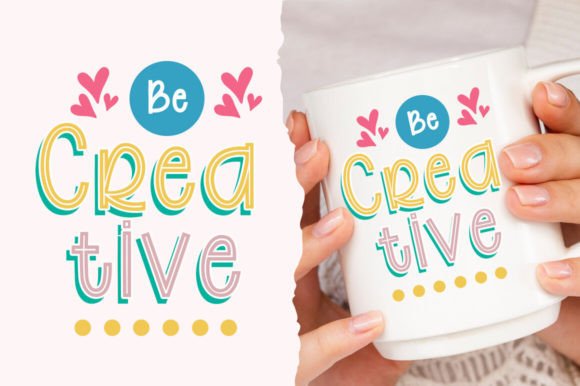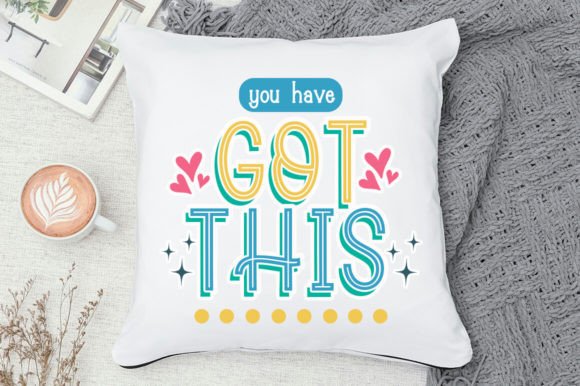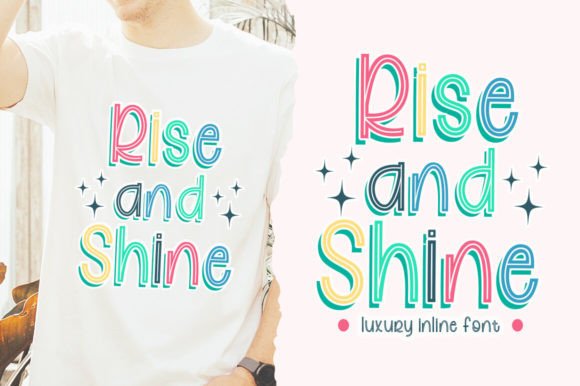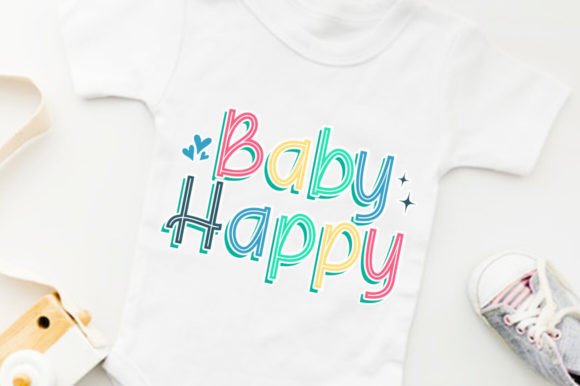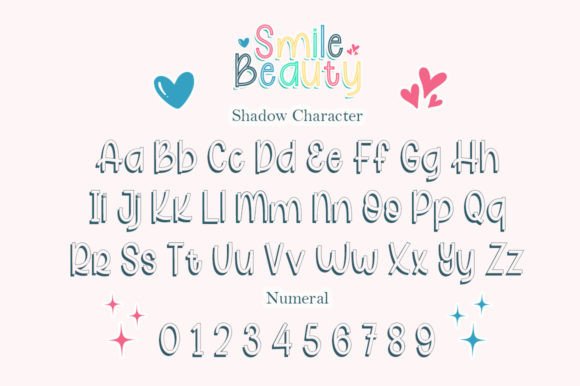
Smile Beauty Font
Smile Beauty is a beautiful and unique Inline Font that comes with a shadow that will make your design even better. This font is ideal for creating, branding and decorating any of your projects.